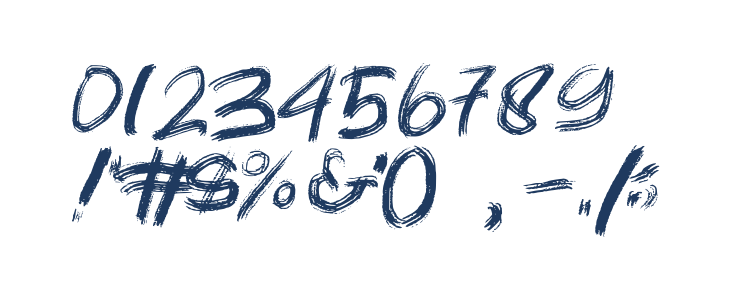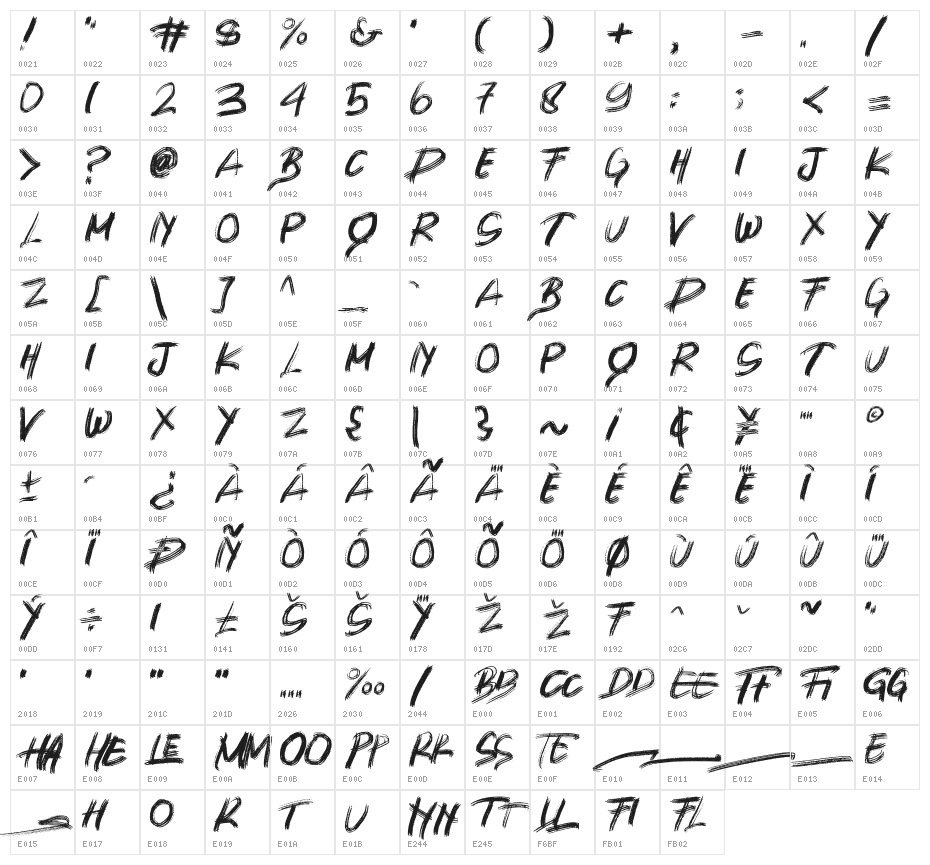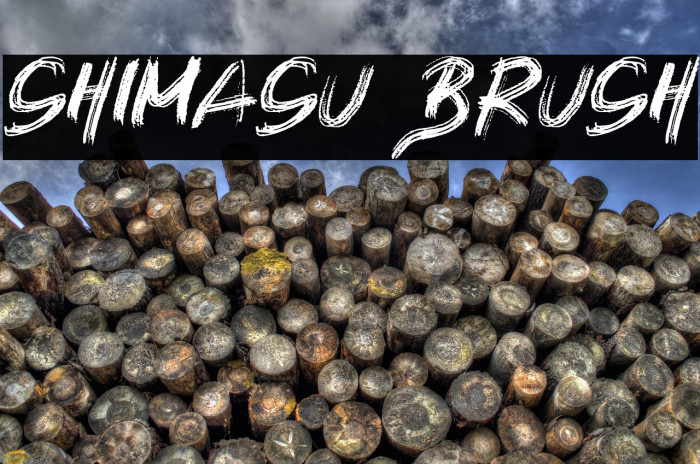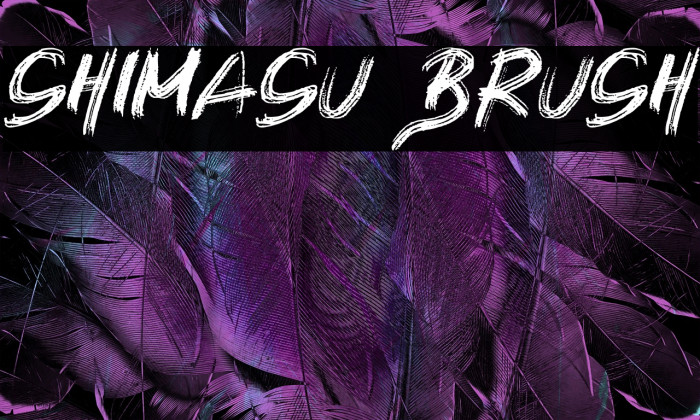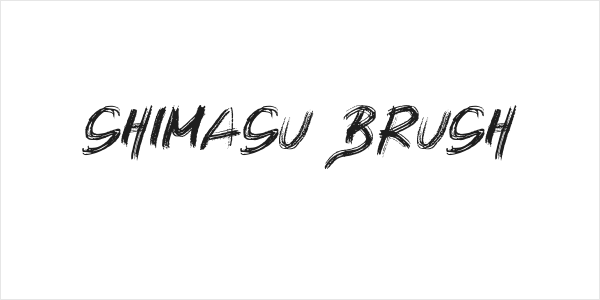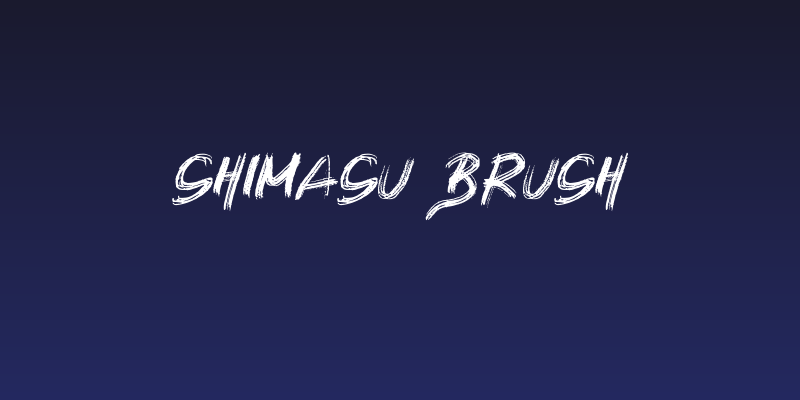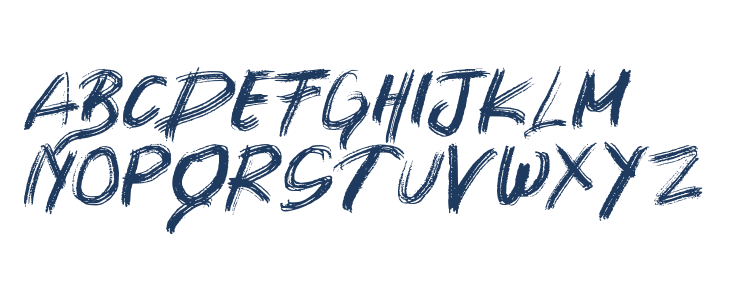
SHIMASU BRUSH Font
SHIMASU BRUSH Description
This font exudes a dynamic and energetic feel, characterized by its bold, brush-like strokes that give it a hand-painted appearance. The letters are slightly slanted, adding a sense of movement and fluidity. The rough edges and varying stroke thicknesses contribute to its raw and artistic style, making it stand out as a statement piece. The uppercase and lowercase letters maintain a consistent style, while the numerals and special characters complement the overall aesthetic with their expressive forms. This font is ideal for projects that require a bold and creative touch.
| Proposed Projects | Perfect for branding, posters, album covers, and creative advertising campaigns. |